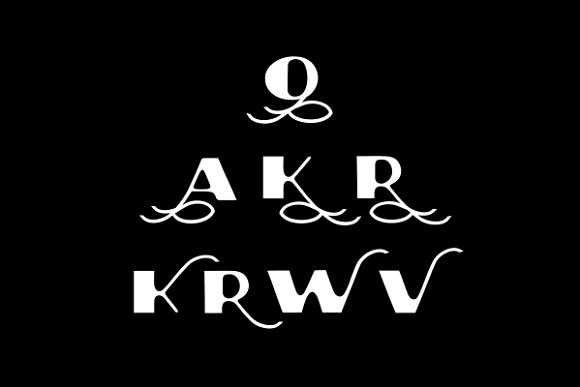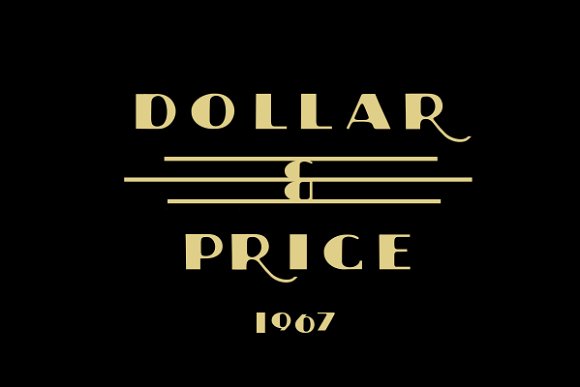
Cordial Font: A Nostalgic Typeface Inspired by Boardwalk Empire
For designers and crafters looking for a unique and authentic font to add a touch of nostalgia to their projects, Cordial Font is an excellent choice. This beautifully crafted typeface is inspired by the iconic signage of Atlantic City’s boardwalks during the 1900s, as seen in the hit TV show Boardwalk Empire. In this article, we’ll dive into the story behind Cordial Font, its design characteristics, and how it can elevate your design projects.
The Inspiration Behind Cordial Font
Cordial Font was conceived by a designer who wanted to pay homage to the classic signage of Atlantic City’s boardwalks during the 1900s. Growing up in Pennsylvania, the designer has fond memories of visiting the beach and was fascinated by the unique lettering styles used in shop window displays. With the resurgence of vintage and retro aesthetics in design, the designer saw an opportunity to create a font that would capture the essence of a bygone era.
Design Characteristics of Cordial Font
Cordial Font is a meticulously crafted typeface that embodies the charm and character of early 20th-century signage. The font features:
- Classic lettering style: Cordial Font boasts a distinctive, hand-crafted look, reminiscent of traditional sign painting.
- Unique character set: The font includes a range of characters, punctuation, and ligatures, ensuring that your designs will have a authentic, vintage feel.
- High-quality rendering: Cordial Font is designed to perform well in various sizes and resolutions, making it suitable for a wide range of applications.
Using Cordial Font in Your Design Projects
Cordial Font is an excellent choice for designers and crafters working on projects that require a touch of nostalgia and vintage flair. Here are some ideas for using Cordial Font:
- Branding and packaging: Add a vintage twist to your brand identity or packaging design with Cordial Font.
- Signage and posters: Create eye-catching signs, posters, or flyers that evoke the spirit of a bygone era.
- Digital and print media: Use Cordial Font in your digital and print projects, such as brochures, magazines, or social media graphics.
- Crafting and scrapbooking: Add a personal touch to your scrapbooking, journaling, or crafting projects with Cordial Font.
Tips for Getting the Most Out of Cordial Font
To maximize the impact of Cordial Font in your designs, consider the following tips:
- Experiment with colors: Combine Cordial Font with bold, vibrant colors to create a striking visual effect.
- Mix and match: Pair Cordial Font with other fonts or design elements to create a unique and eye-catching composition.
- Pay attention to spacing: Adjust the spacing between letters and words to achieve a authentic, hand-crafted look.
| Font Name | Cordial Font |
| Author | Noah Kinard |
Cordial Font is a beautiful and authentic typeface that captures the essence of a bygone era. With its classic lettering style, unique character set, and high-quality rendering, it’s an excellent choice for designers and crafters looking to add a touch of nostalgia to their projects. Whether you’re working on branding, signage, or crafting projects, Cordial Font is sure to inspire your creativity and transport your designs to a bygone era.